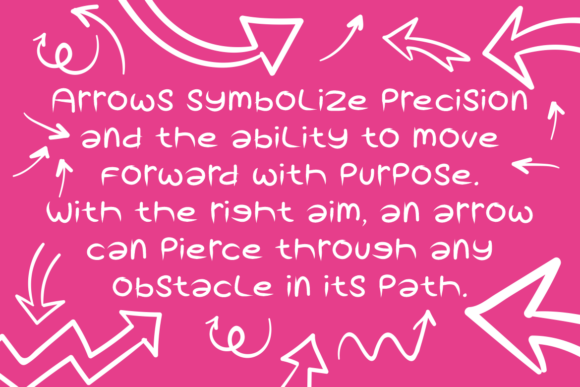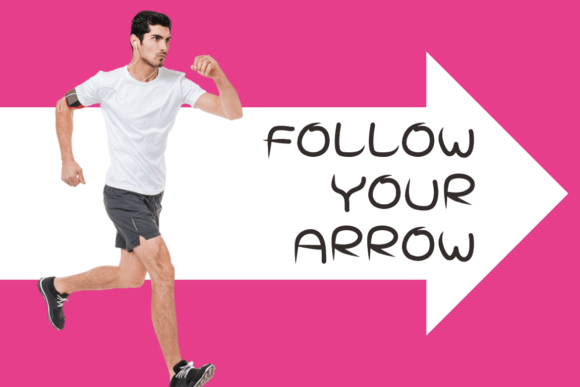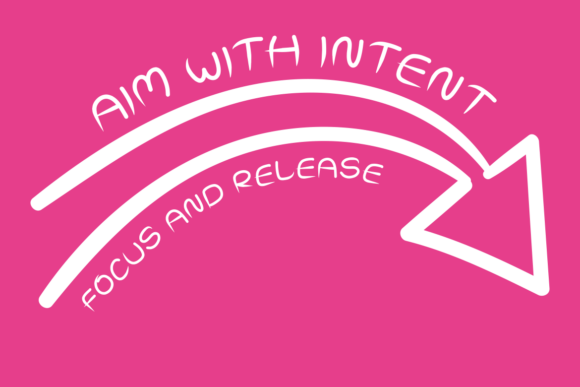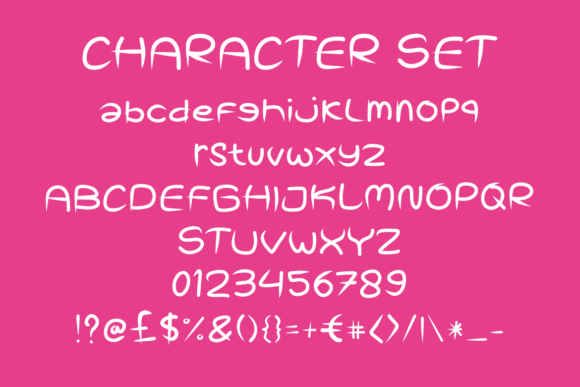
Introduction to Rounded Arrow Font Font
Fonts play a crucial role in design, and the Rounded Arrow Font font is a typeface that brings both character and versatility to any project. Whether you’re working on a branding project, a website, or a print design, the Rounded Arrow Font font offers a unique style that can elevate your work.
RoundedArrow – Display Font Introducing RoundedArrow – Display Font, a delightful typeface that brings a playful and bold touch to any design.
With its rounded edges and quirky arrow-shaped terminals, this font exudes a sense of fun that is perfect for projects aimed at children or the young at heart The handdrawn quality of RoundedArrow adds a personal, handmade feel to your work, making it ideal for crafting, invitation cards, and more.
Key Features of Rounded Arrow Font Font
Why Choose Rounded Arrow Font Font?
The Rounded Arrow Font font is more than just a typeface – it’s a design tool that helps you communicate your message with style and clarity. Its unique character set and versatile design make it suitable for a wide range of applications, from elegant invitations to bold headlines.
With its carefully crafted letterforms and balanced proportions, the Rounded Arrow Font font ensures readability and visual appeal across all mediums.
What makes Rounded Arrow Font font special?
The Rounded Arrow Font font stands out with its unique design, exceptional readability, and versatility across various design applications.